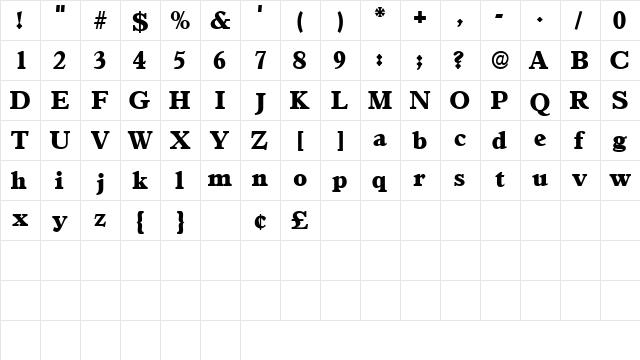
AgonicDisplaySSK Regular
Design Context for AgonicDisplaySSK Typeface
AgonicDisplaySSK is built around its visual character rather than neutral utility — its distinctive forms are designed to make an impression at display sizes.
Font Pairing: Pair with a clean neutral sans-serif for body copy to let AgonicDisplaySSK's character lead without overwhelming the composition.
Pro Tip: Treat AgonicDisplaySSK as the centrepiece of your typographic hierarchy. One strong heading set in a decorative face can carry an entire layout.